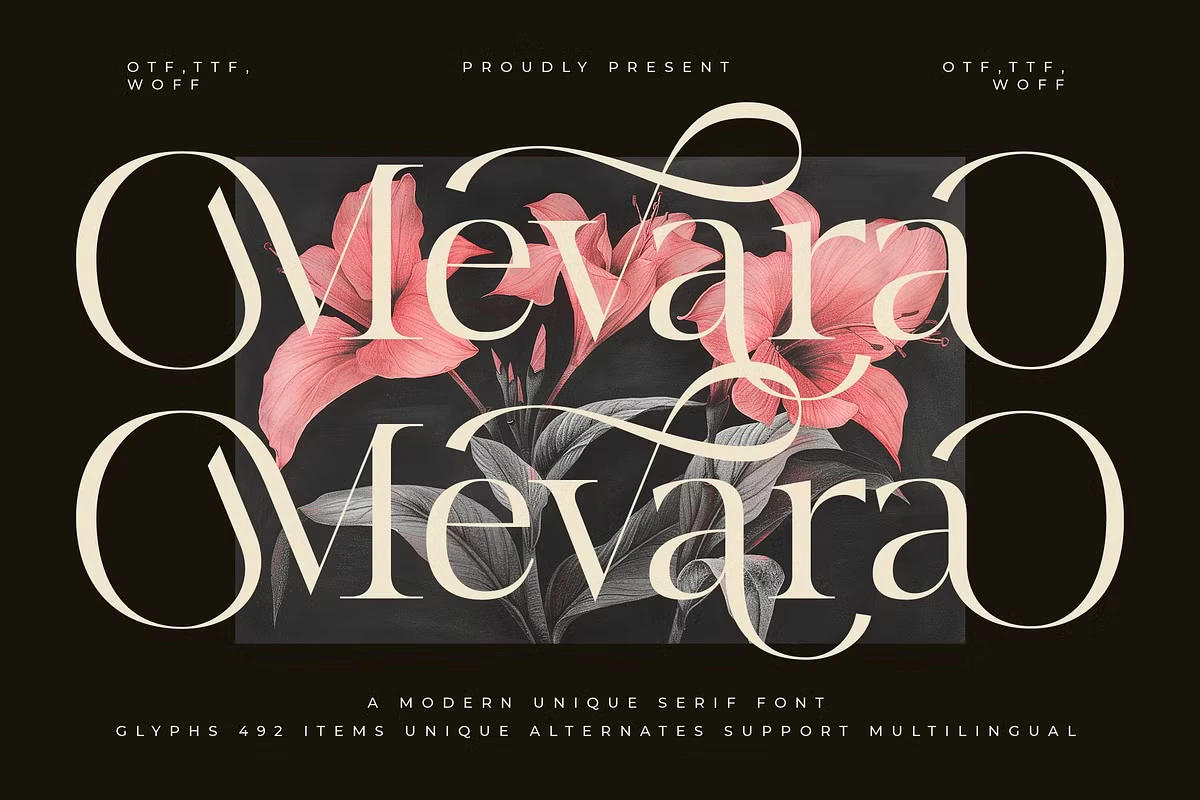
Mevara is a sophisticated serif typeface that seamlessly blends classic elegance with structural solidity. Inspired by the delicate yet precise design of Fraktur Calligraphy, Mevara strikes the perfect balance between intricate detailing and straightforward strength. This typeface offers over 30 uppercase alternatives and more than 80 lowercase variations, allowing for unique typographic customization. Whether you’re looking to refine your text with subtle embellishments or create a bold statement, Mevara provides the flexibility to craft distinctive designs. Additionally, it supports multiple languages and includes alternate characters that can be accessed using numbers after letters or through its Private Use Area, ensuring a highly versatile and functional experience.
Designed with a philosophy of refined sophistication, Mevara is an excellent choice for logos, branding, and creative projects that require a touch of elegance. Its extensive character set and multilingual support make it an adaptable solution for designers with diverse creative needs. Whether you’re adding unique flourishes to your typography or constructing an entirely original composition, Mevara delivers both beauty and reliability. Its versatility and timeless charm make it a must-have for designers and typographers seeking a perfect blend of style and functionality.